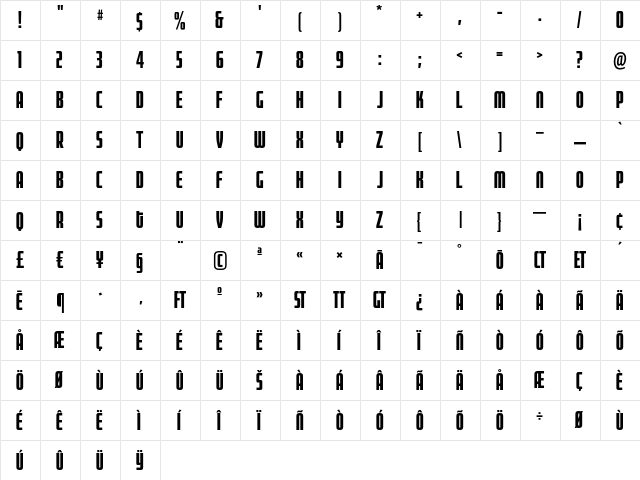
MorganTw4 Regular
Design Context for MorganTw4 Typeface
MorganTw4 takes a measured approach to typography — its balanced proportions and neutral character make it a reliable workhorse for both digital and print work.